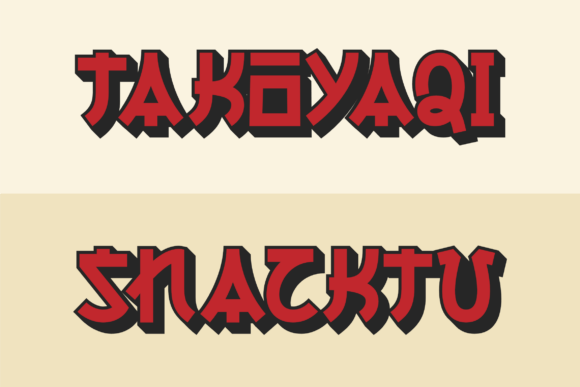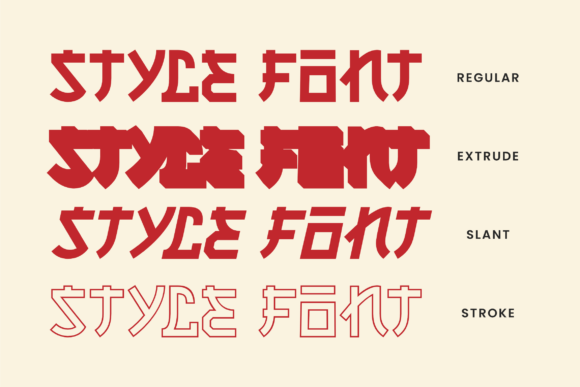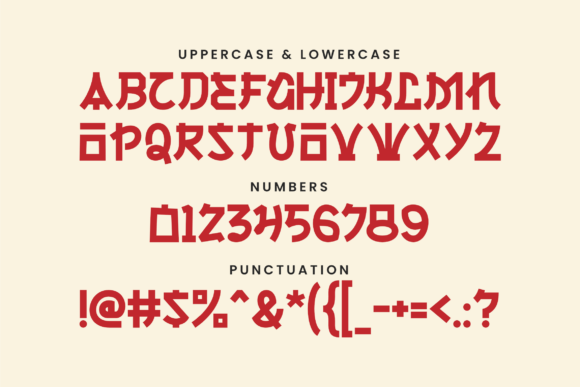
Introduction to Mitohan Font
Bring the spirit of Japan into your designs with Mitohan – a unique display font inspired by traditional Japanese aesthetics, fused with a modern twist.
Perfect for eye-catching projects such as posters, branding, apparel, logos, food packaging, and anything with an Asian flair With bold letterforms, geometric Japanese-style elements, and a retro-futuristic touch, Mitohan comes in 4 styles: Regular, Extrude, Slant, and Stroke – offering flexibility and striking visual depth to every word.